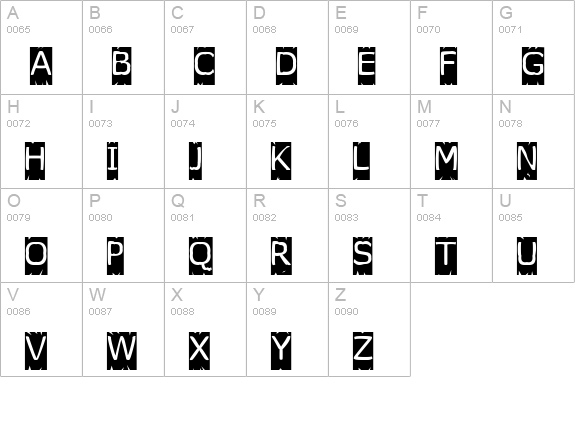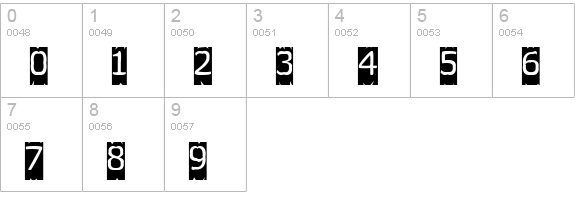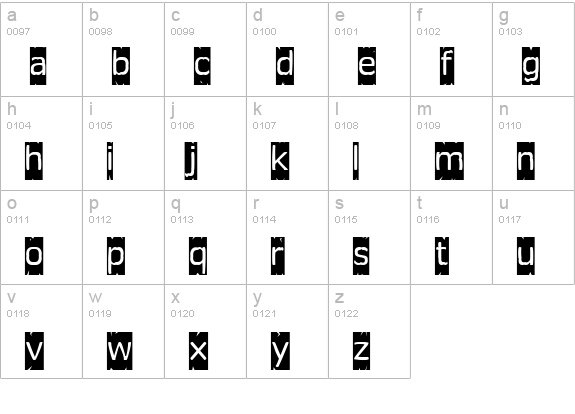
Tearoff Font Details
The Tearoff font is a beautifully crafted typeface that combines elegance with a touch of playfulness. Its unique design features tear-like shapes that add a dynamic and modern flair to any project. This versatile font is perfect for a variety of design applications, from branding to editorial work. Best of all, Tearoff font is available for free download at FontsMarket.com. Whether you're a seasoned designer or just starting out, this font is a valuable addition to your collection. Embrace the creativity and style that Tearoff font brings to your projects and make a statement with every word you type.